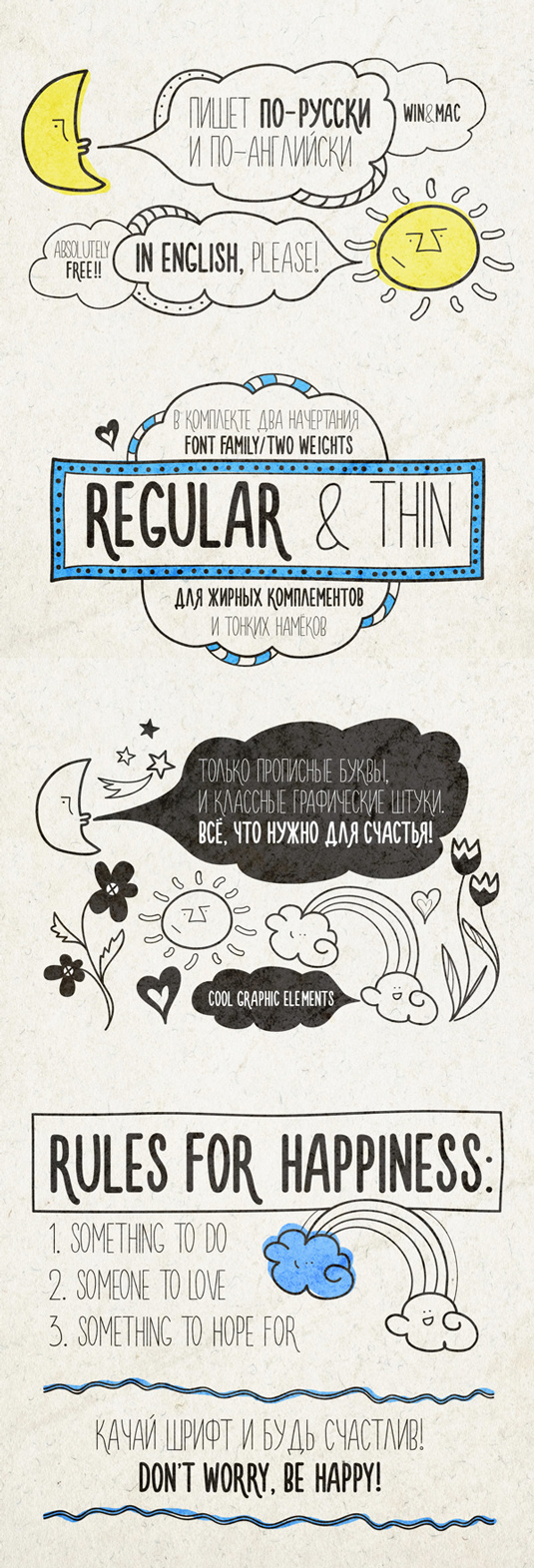
Font of the day: Novito Nova
Novito Nova by Nina Z.
Today's font of choice is Novito Nova by Russian designer Nina Z. "This font was made for making people happy," she comments on Behance. A whimsical design, Novito Nova is great for providing projects with an authentic handmade feel.